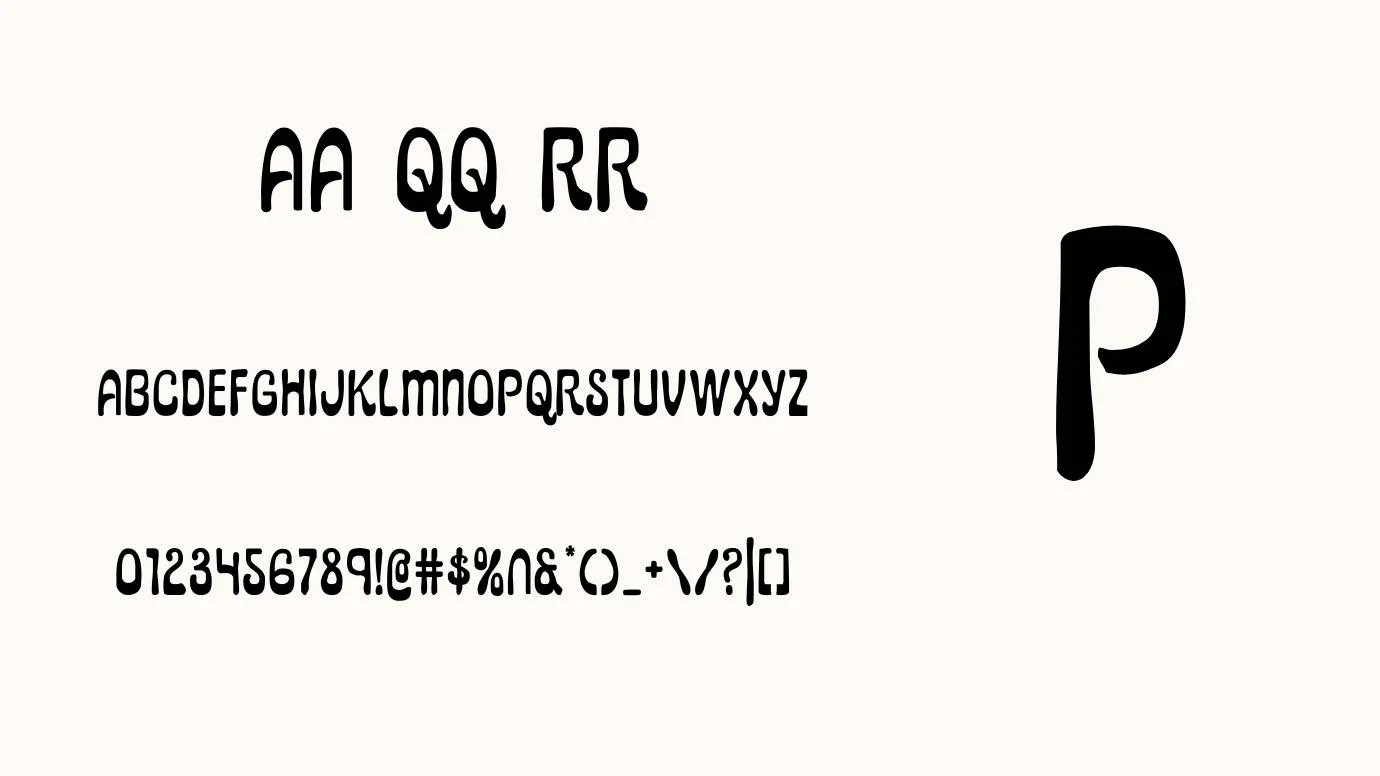
Pepperland Font is a very attractive display type font and it was designed by Daniel Zodorozny. It has amazing features, and you can download it on various devices, such as it supports file formats True Type Font and Open Type Font.
It has amazing features as it contains 252 characters, 221 glyphs, and 1000 units per Em. The font’s weight is Semi-Bold and its width is semi-condensed. You can also use this font for pairing with other fonts such as beatster font to give a more attractive look to your projects.
Pepperland Font